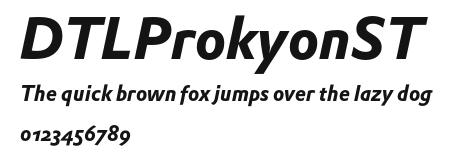
• Font Name: DTLProkyonST
• Full Font Name: DTLProkyonST Bold Italic
About DTLProkyonST.otf
DTLProkyonST.otf is a modern, elegant sans-serif font designed for ultimate readability and visual harmony. Perfect for branding, headlines, web design, and print materials.